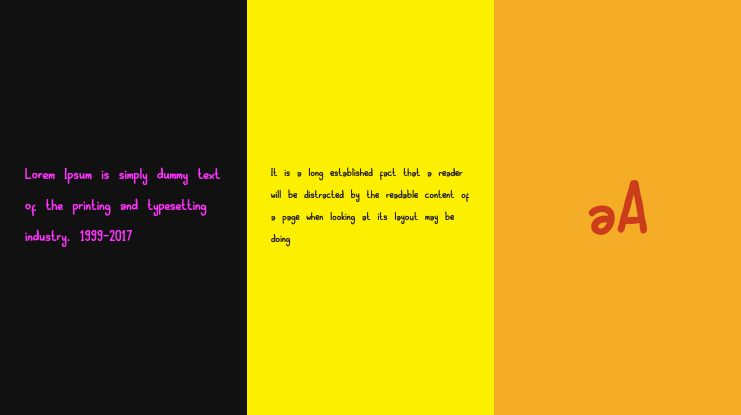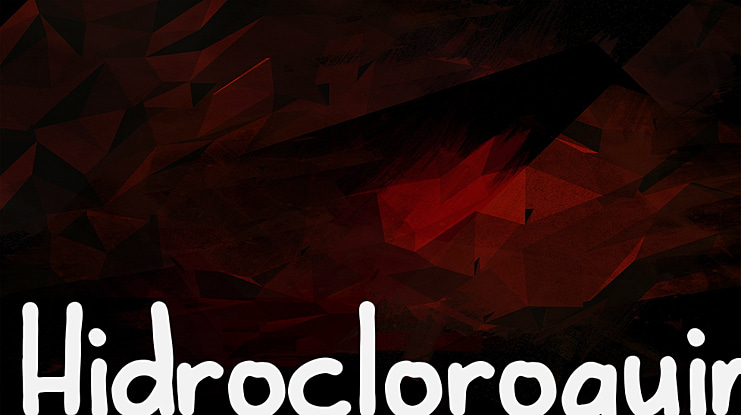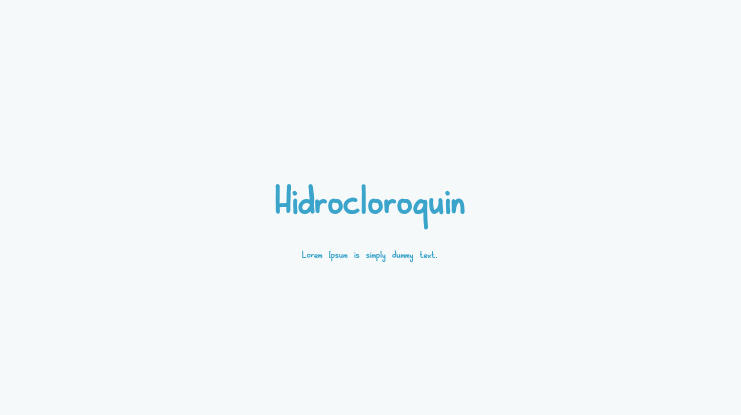
Hidrocloroquin Font
Hidrocloroquin is a simple and casual handwritten font. Its natural and unique style makes it incredibly fitting to a large pool of designs.